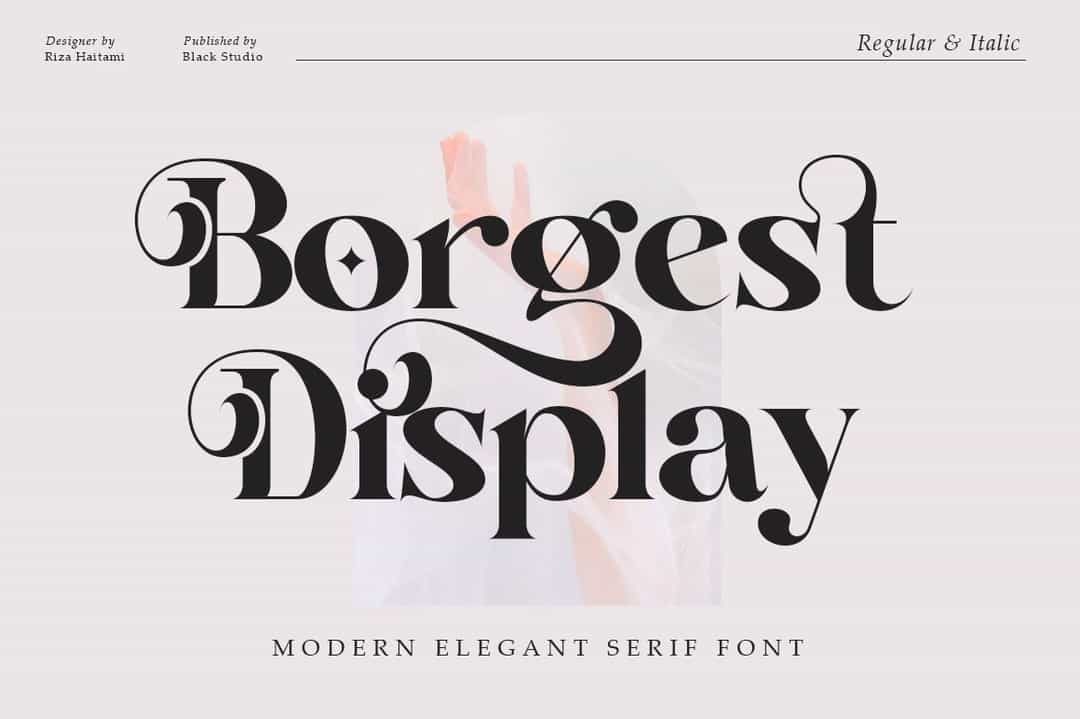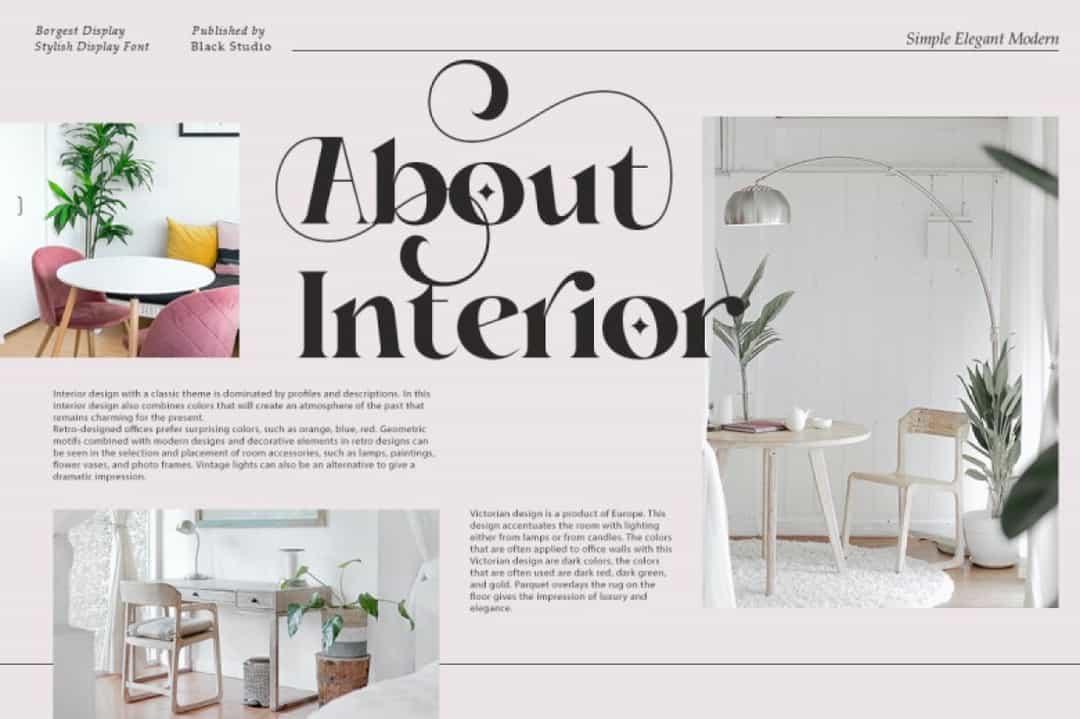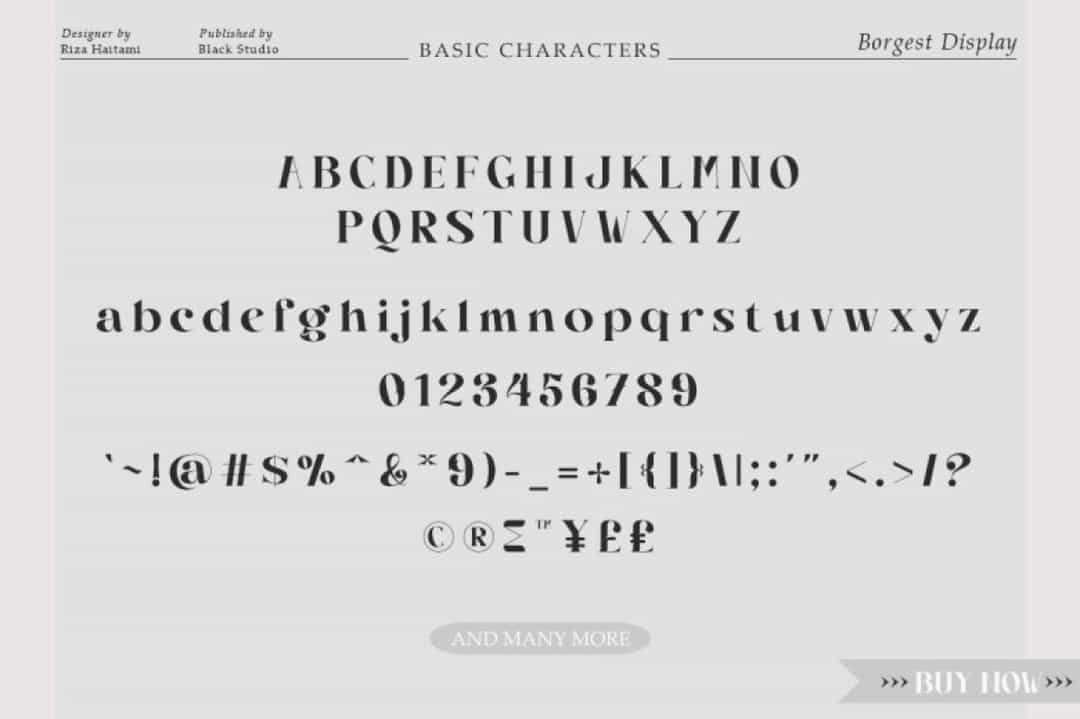
Borgest Display Typeface is making waves! A serif font designed with luxury and elegance in mind, Borgest Display exudes glamour and femininity while offering beauty as well. Boasting endless design opportunities and offering limitless creative potentials this typeface promises endless creativity opportunities!